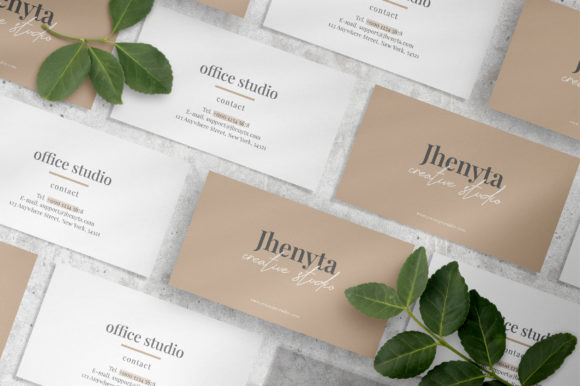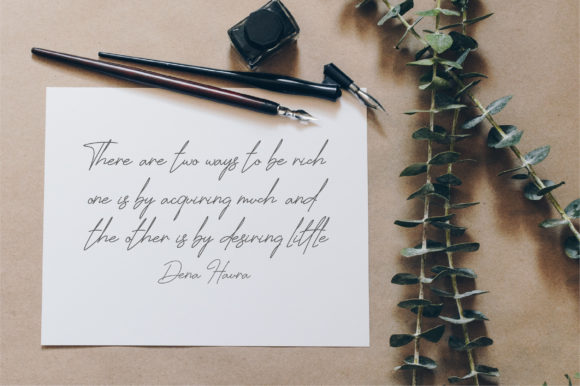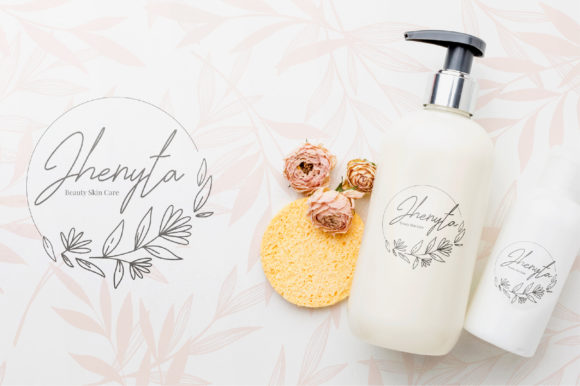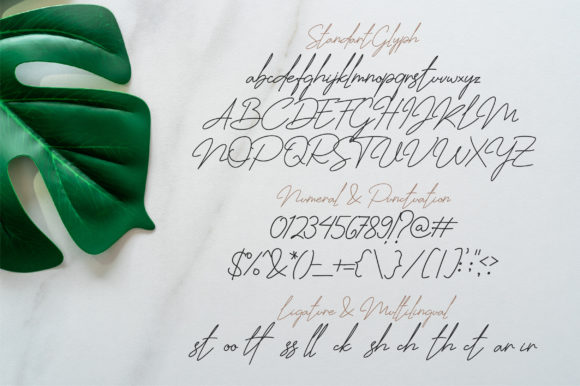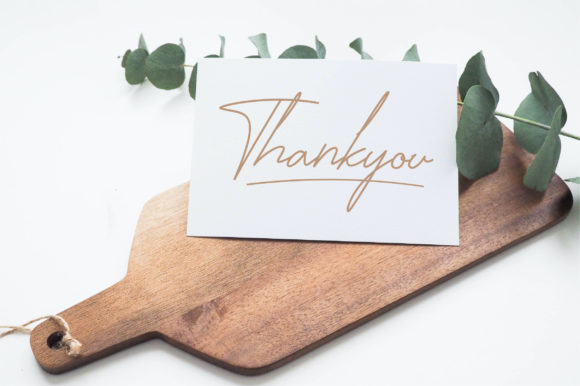
Introduction to Jhenyta Signature Font
Jhenyta Signature is a thin and elegant handwritten font.
It looks beautiful on a variety of designs requiring a personalized style, such as wedding invitations, thank you cards, weddings, greeting cards, logos and so on .
Key Features of Jhenyta Signature Font
Why Choose Jhenyta Signature Font?